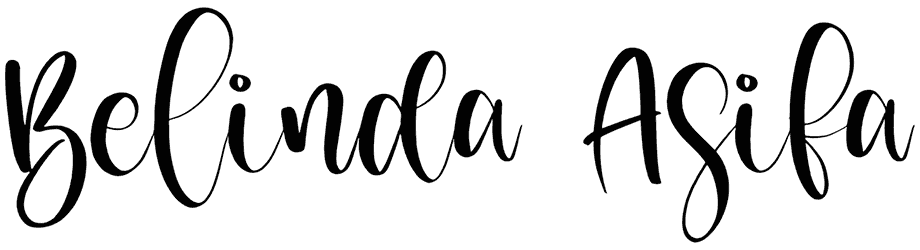
Belinda Asifa Font
A professional graphic designer would never overlook a magical script font such as Belinda Asifa that carries a feeling of personalization, vitality, smudginess, and tenderness. Since this calligraphy font provides crooked letters and accurate kerning, it would look insanely perfect on logos, greeting cards, magazines, applications, or menus. Check out the RB archive to find many other products.